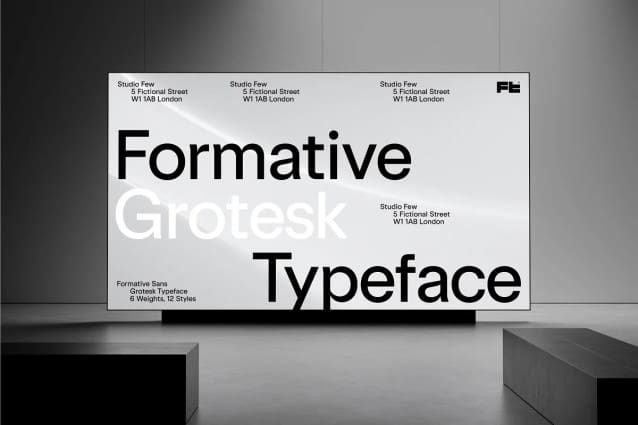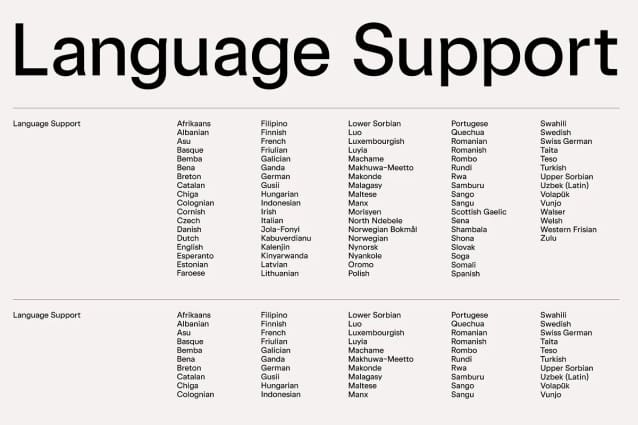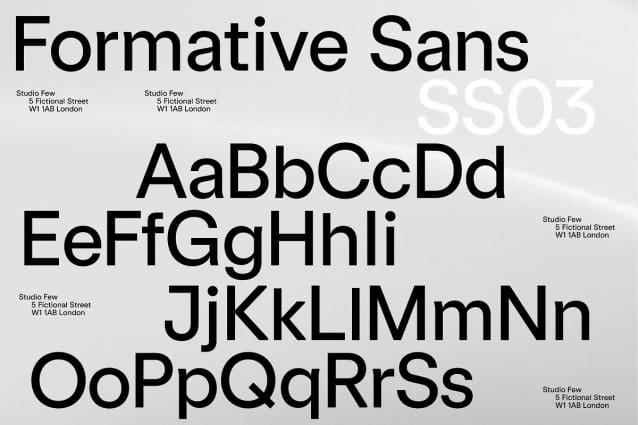
Formative Font Family
Formative Font Family, is a sans serif  stunning when combined or separately. This sans serif font style is legible and stunningly designed. Angled terminals, squared off bowls, and a balance of curved paths with straight. Formative is a grotesk with charm. Includes a stylistic set featuring standard ‘text’ style terminals.